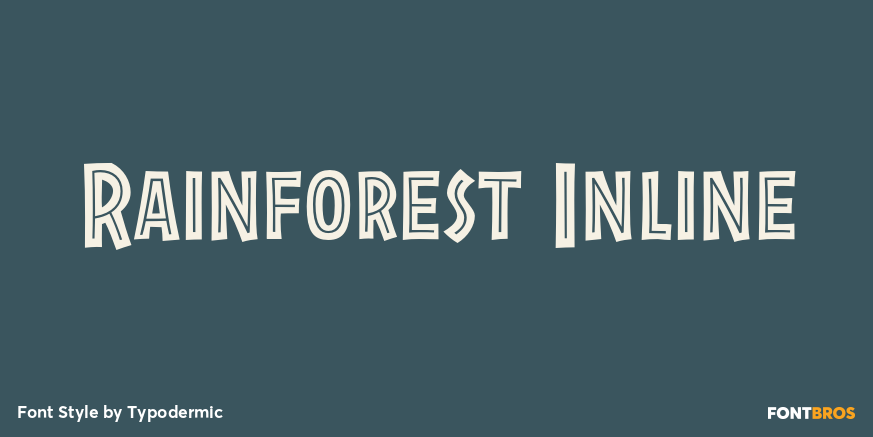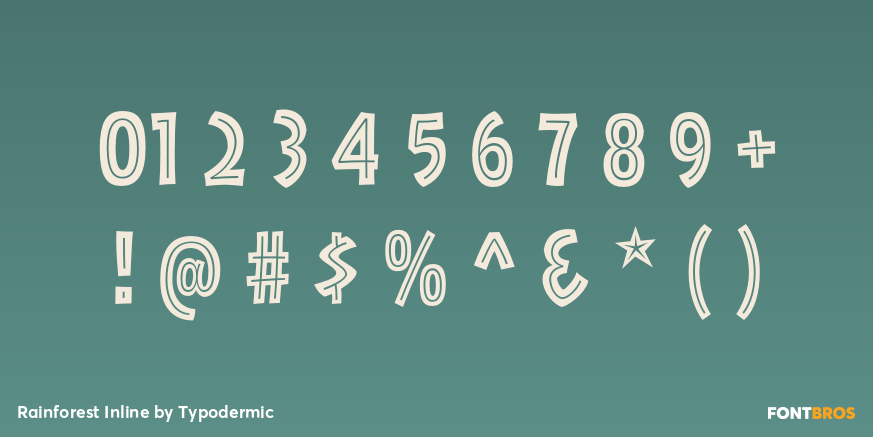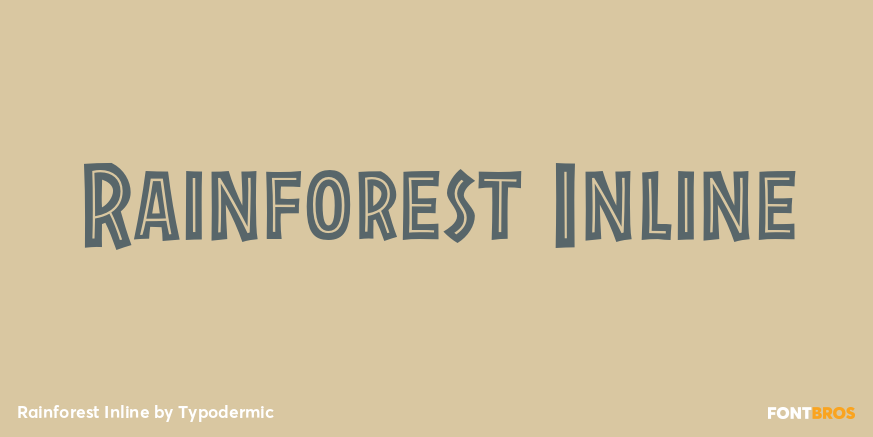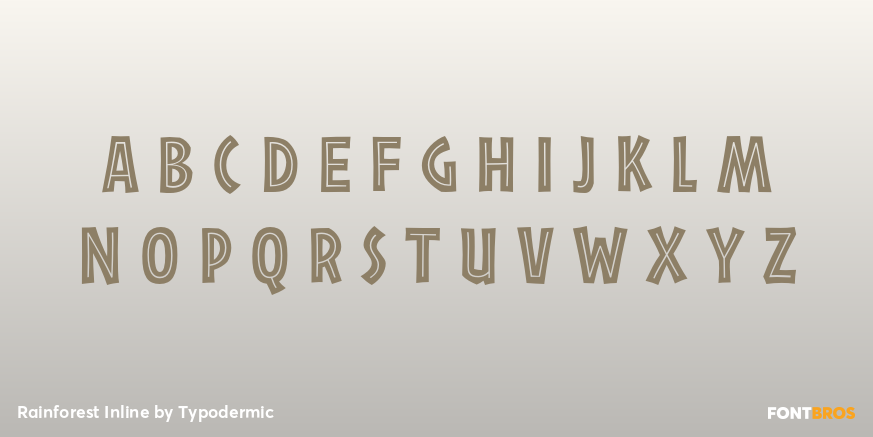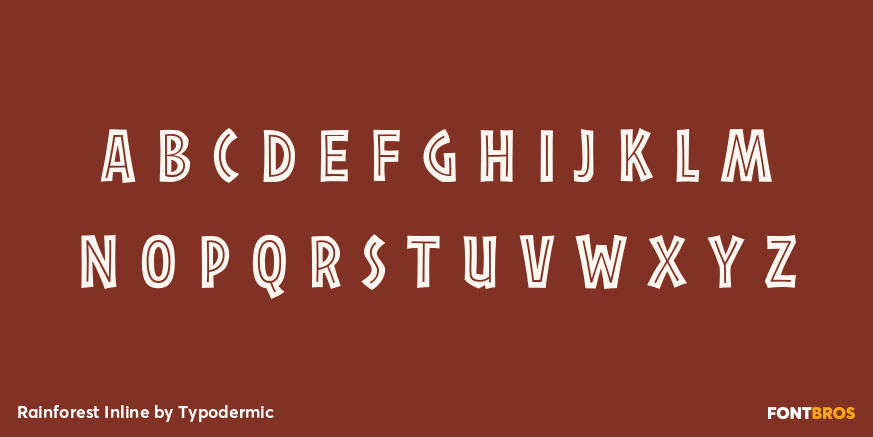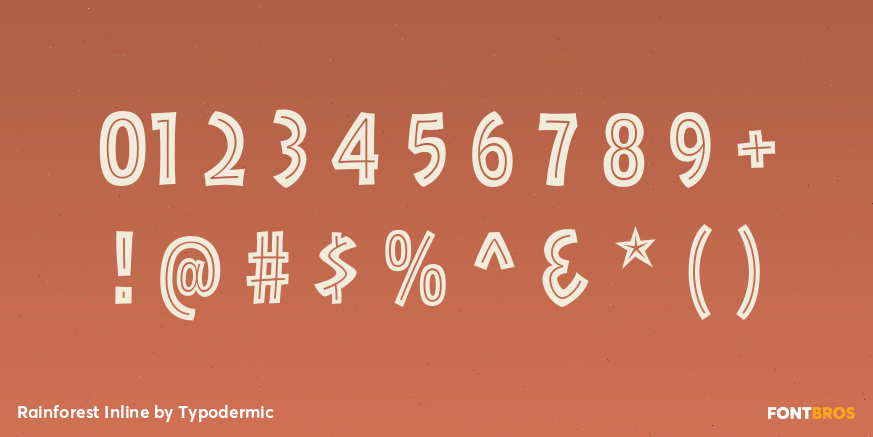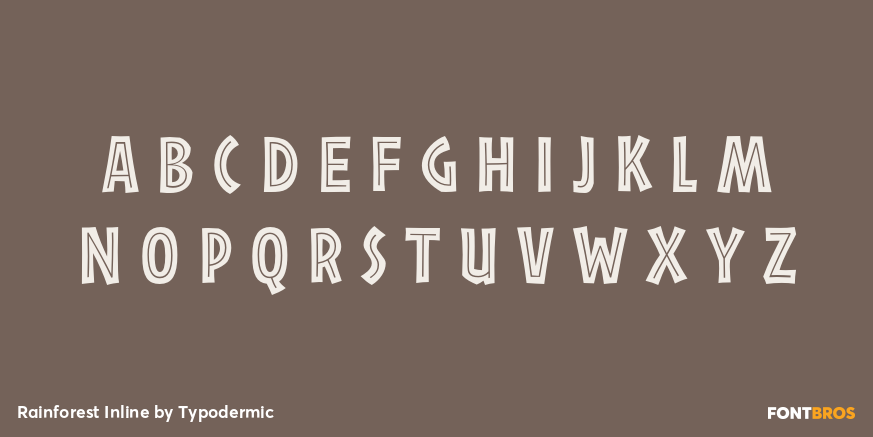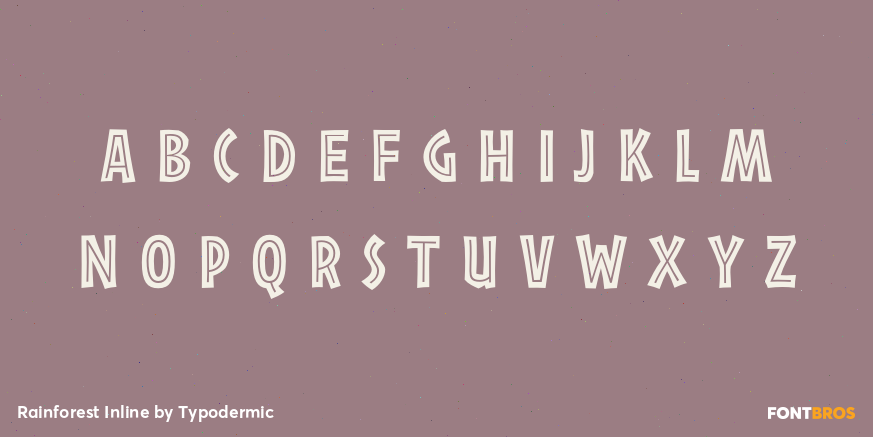
Rainforest Inline
Buy NowRainforest Inline cuts a narrow channel through the family’s broad, irregular small-cap strokes. The inset line lightens the solid forms without changing their condensed proportions, giving short words a carved, divided surface that remains compatible with Rainforest’s other display layers.
Use Rainforest Inline for tropical attraction names, dinosaur exhibits, beach-club graphics, hot-sauce labels, drink packaging, and family-leisure titles that need a strong two-tone rhythm. It can stand alone in one color or join Regular and Topline in coordinated layered treatments. Keep it at display size so the inner channel remains open, with a simpler companion face handling schedules and detailed information.